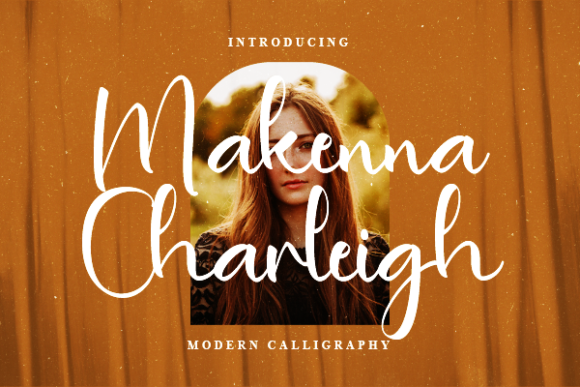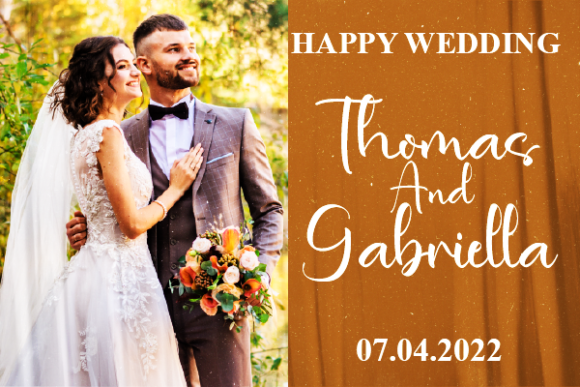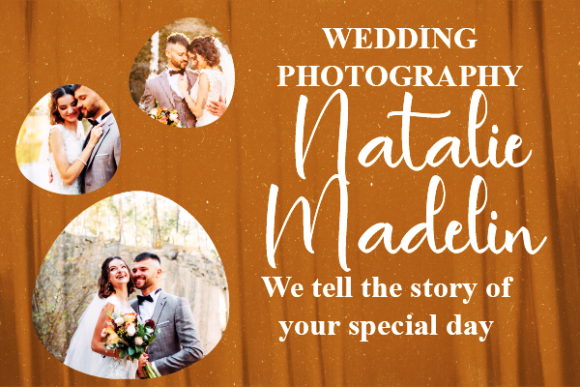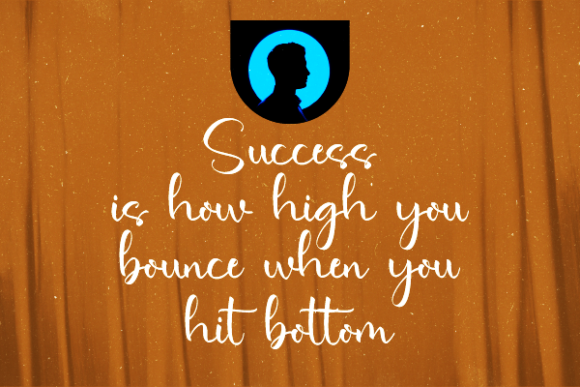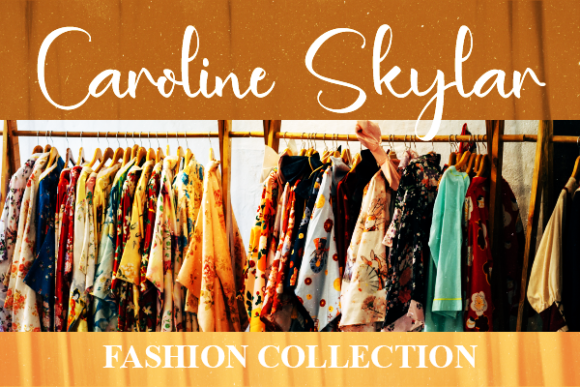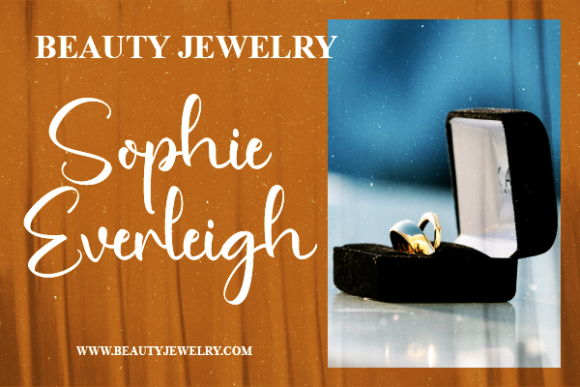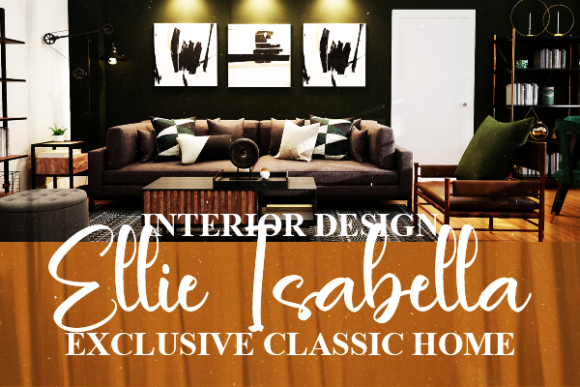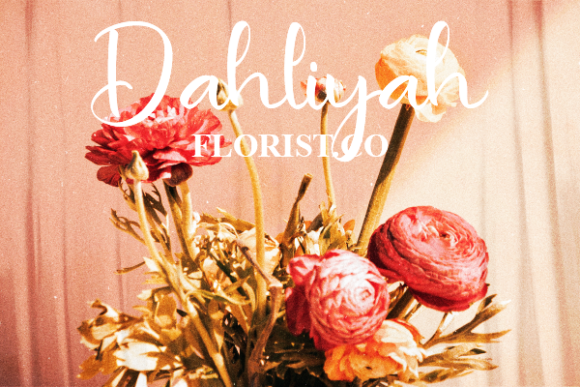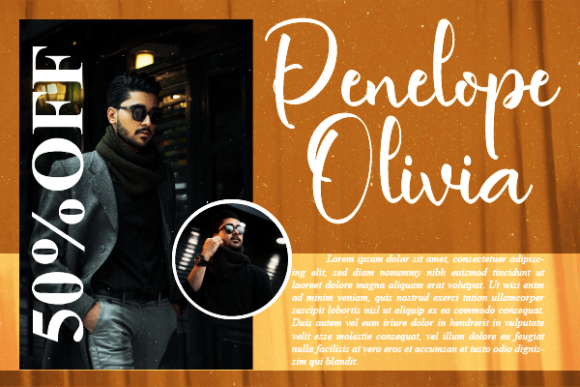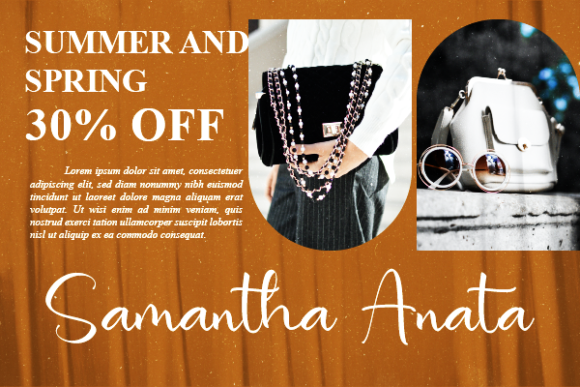
Makenna Charleigh Font
About Makenna Charleigh Font
Makenna Charleigh is a truly captivating and luxurious script font that effortlessly marries the realms of cuteness and opulence. Its intricate details, fluid curves, and elegant strokes come together in perfect harmony, creating a visual masterpiece that is bound to leave a lasting impression.
This font’s versatility knows no bounds, making it a perfect choice for a wide array of branding projects. Whether you’re designing logos for upscale businesses, printing stylish and trendy t-shirts, or crafting unique and innovative products, Makenna Charleigh will add a touch of refinement and class that sets your work apart.
The carefully designed characters of Makenna Charleigh embody a sense of playfulness and sophistication, making every letter a work of art in its own right. The whimsical curls and loops effortlessly draw the eye, while the impeccable form and balance of each letter create a sense of order and elegance that is simply mesmerizing.
As you incorporate Makenna Charleigh into your designs, you’ll witness how it effortlessly transforms the ordinary into the extraordinary. Its ability to adapt to various contexts and design themes makes it a go-to choice for creatives seeking a font that can seamlessly blend with their visions. From sophisticated wedding invitations to quirky social media posts, Makenna Charleigh has the power to elevate any project.
What truly sets Makenna Charleigh apart is its ability to evoke emotions and tell a story through its strokes. It’s more than just a font; it’s a tool that allows you to communicate feelings of luxury, charm, and creativity in a visually stunning manner. Whether you’re aiming for a classic and timeless look or a modern and trendy aesthetic, Makenna Charleigh has the versatility to cater to your every design whim.
Incorporating Makenna Charleigh into your creative arsenal will undoubtedly open up a world of possibilities. Its intricate details and carefully crafted design ensure that your projects will exude an air of sophistication and artistry that will captivate your audience and leave them in awe of your design prowess.